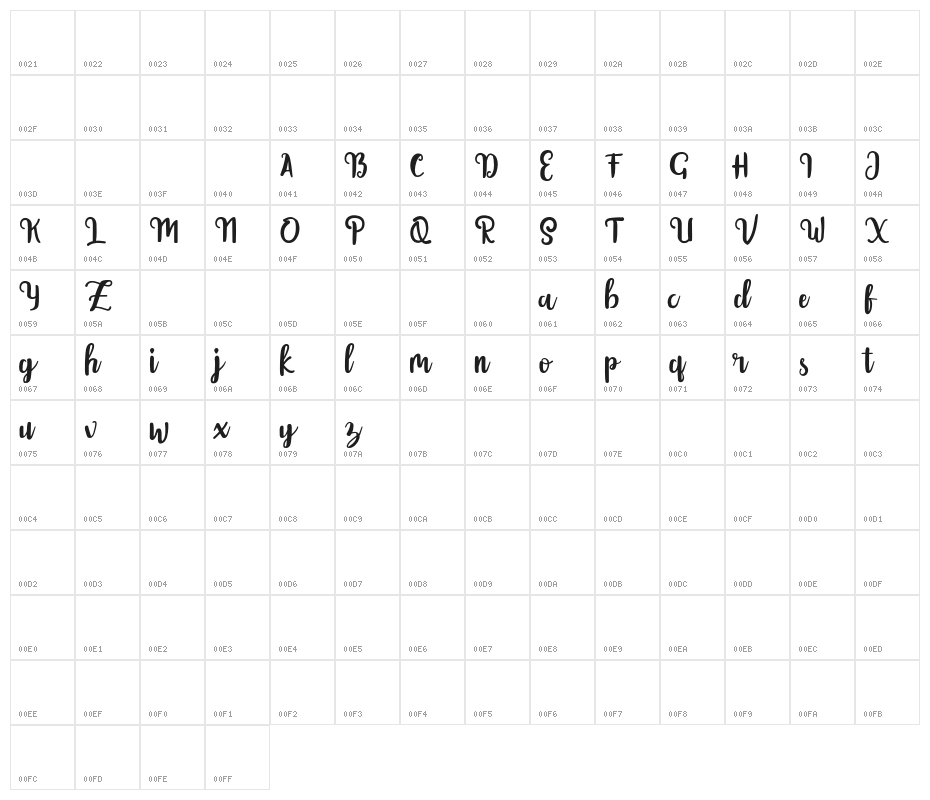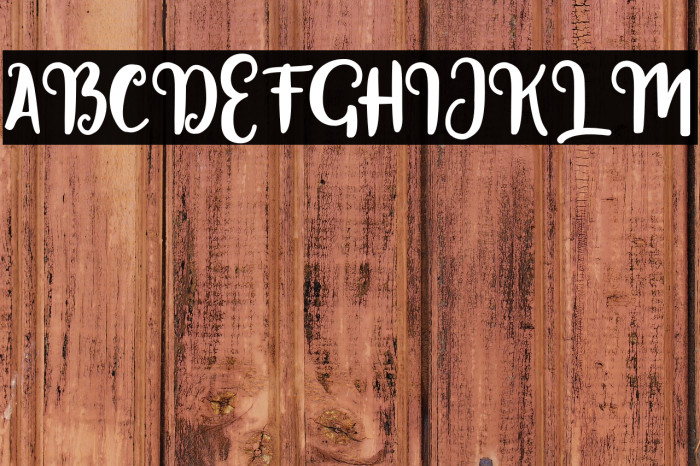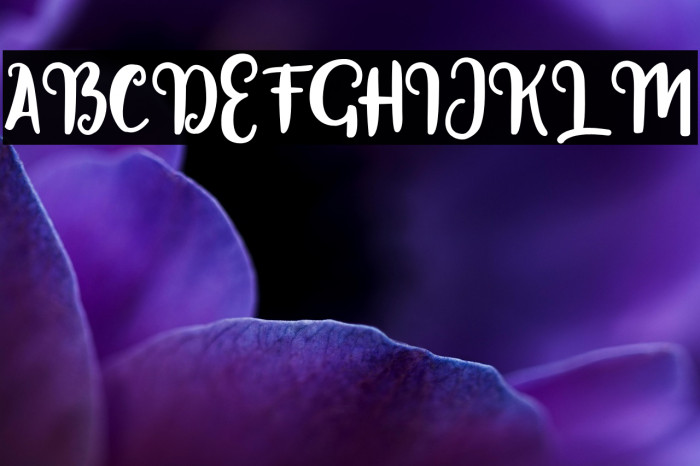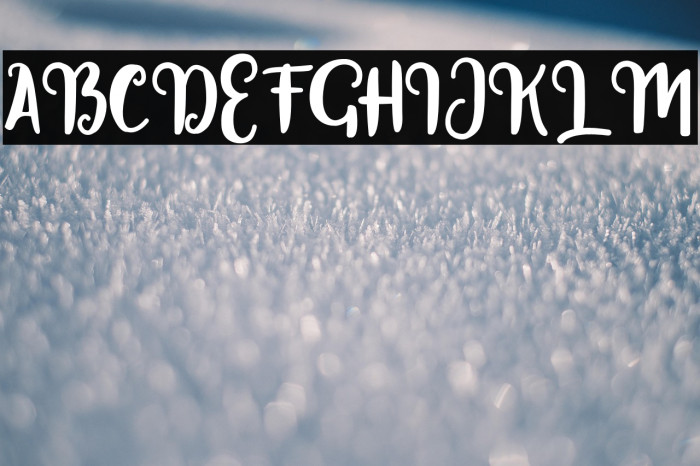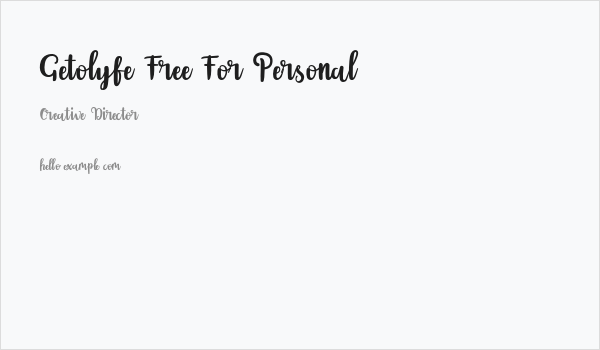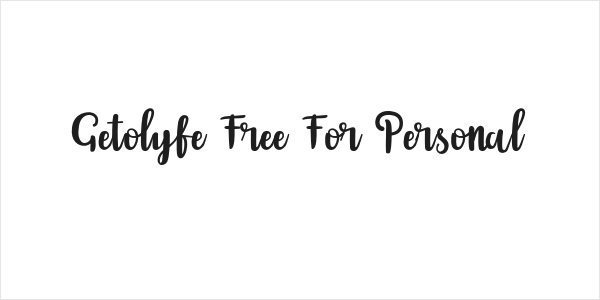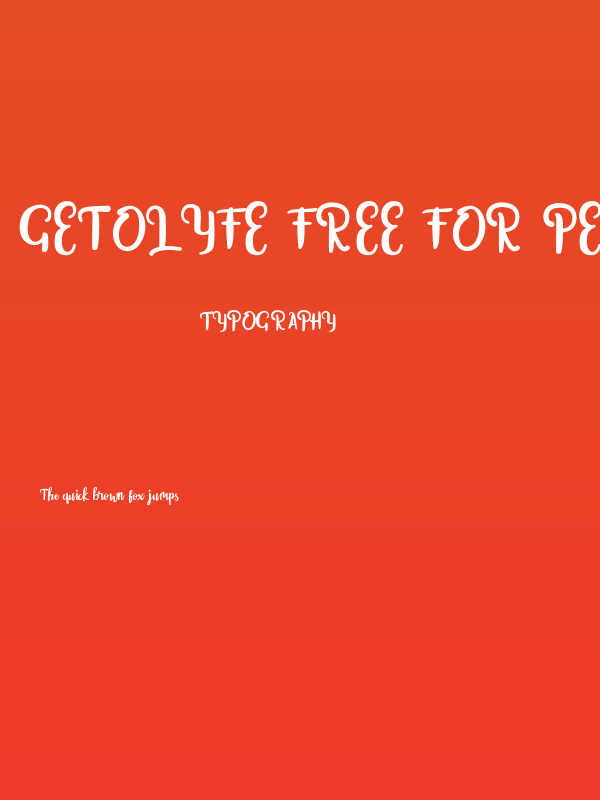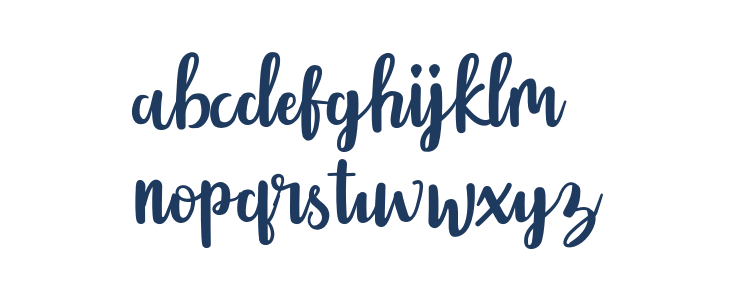
Getolyfe Free For Personal Font
Getolyfe Free For Personal Description
This font features a playful and bold script style with a handwritten feel. The characters are interconnected, giving a sense of fluidity and movement. The uppercase letters are slightly more structured, while the lowercase letters exhibit a more casual and flowing appearance. The strokes are thick and consistent, providing a strong visual impact. This font is ideal for projects that require a personal touch or a creative flair. The special characters maintain the same playful style, ensuring consistency across all text elements.
| Overall Style | Playful, Handwritten |
| Proposed Projects | Ideal for greeting cards, invitations, logos, and social media graphics. |